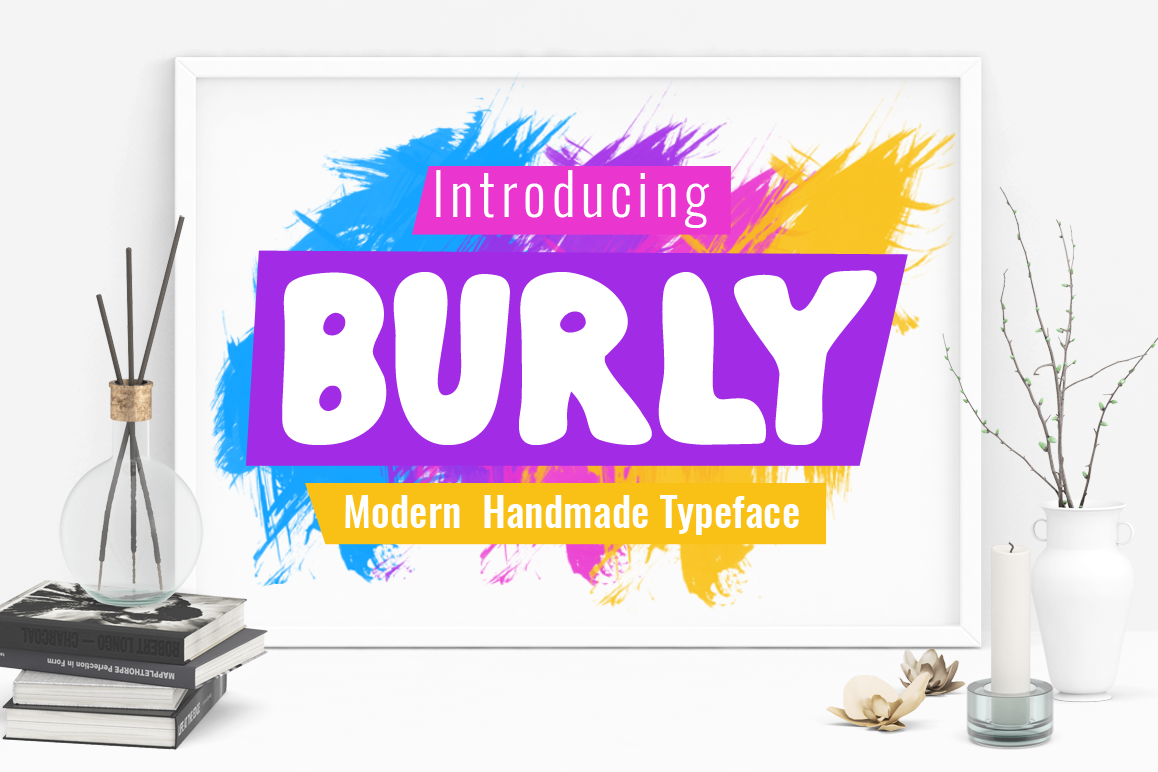
Burly Typeface
Introducing Burly!
Burly
a new fresh & modern handmade bold font! So beautiful on invitation like greeting cards, branding materials, business cards, quotes, posters, and more!